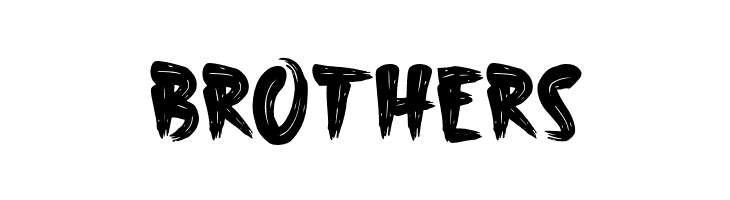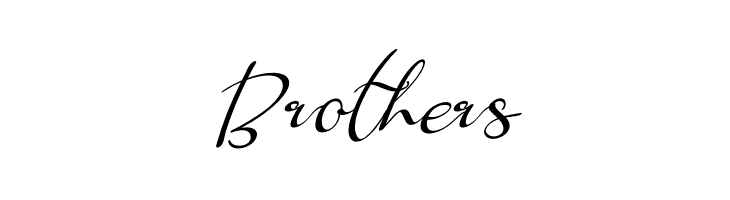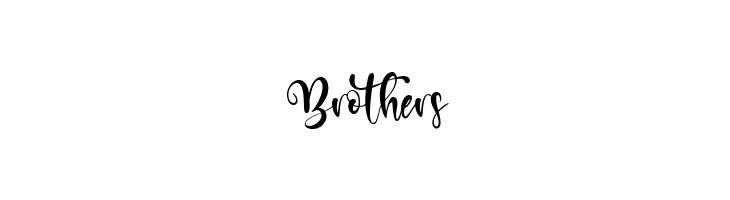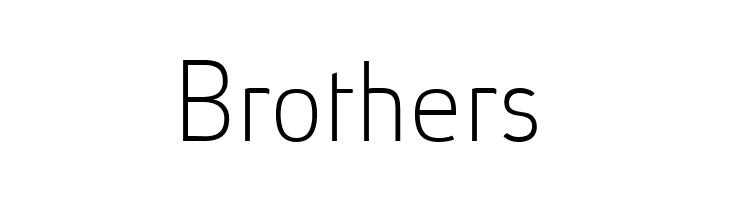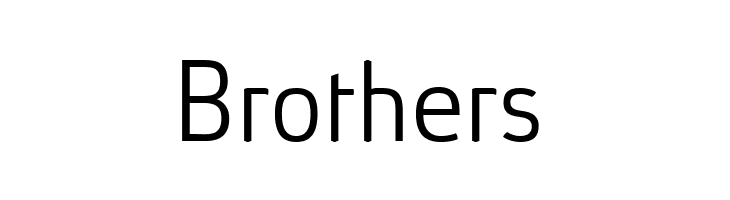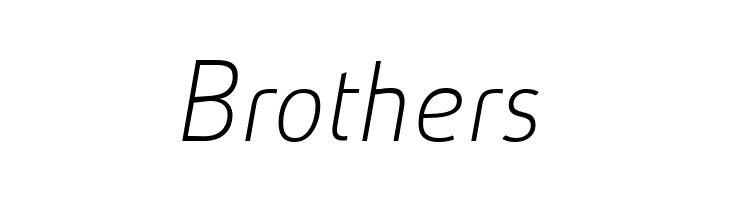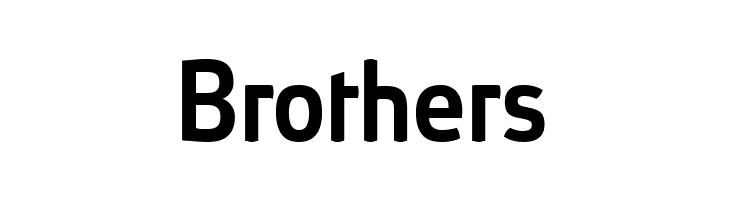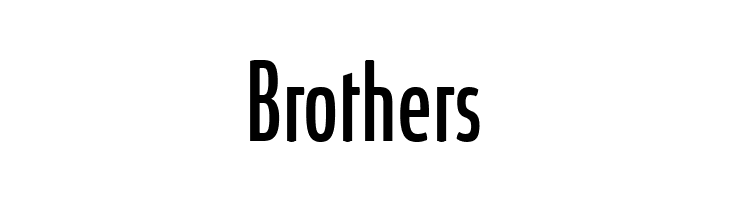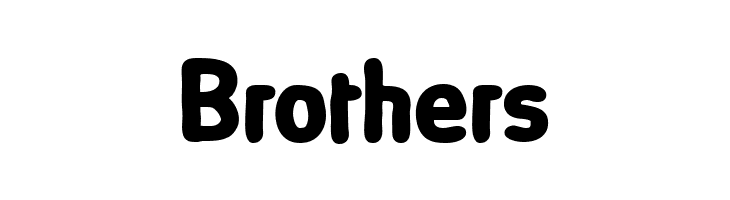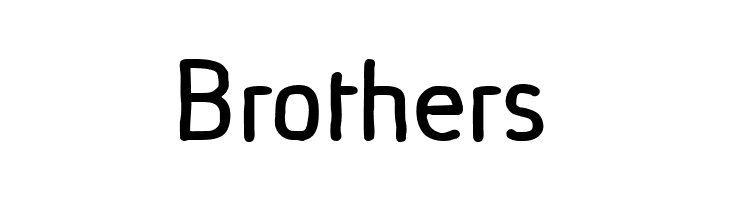
• Abrushow
A bold, brush-style font with dynamic and expressive strokes.
• Absence
An elegant script font with fluid, cursive strokes and sophisticated flourishes.
• Absence
An elegant script font with fluid, cursive strokes and sophisticated style.
• Absinthe
A whimsical and artistic font with elongated, curvy lines and decorative elements.
• Absollute
An elegant and decorative script font with ornate swirls and loops.
• Absollute
An elegant and ornate script font with flowing, decorative letterforms.
• Absolut Condensed Reduced Bold
A bold, condensed font with a modern and impactful style.
• Absolut Condensed Reduced Book
A modern, condensed font with smooth, rounded strokes and a professional appearance.
• Absolut Condensed Reduced Light
A modern, condensed sans-serif font with a sleek, uniform design.
• Absolut Condensed Reduced Medium
A modern, condensed sans-serif font with bold, uniform strokes and tight spacing.
• Absolut Condensed Reduced Thin
A modern, condensed font with thin strokes and geometric shapes.
• Absolut Reduced Black
A bold, rounded font with a modern and playful style.
• Absolut Reduced Black Italic
A bold, italicized font with thick strokes and a dynamic style.
• Absolut Reduced Bold
A bold, modern typeface with rounded characters and a clean aesthetic.
• Absolut Reduced Bold Italic
• Absolut Reduced Book
• Absolut Reduced Fat
A bold, chunky font with rounded edges and a playful style.
• Absolut Reduced Fat Head
A bold, block-like font with rounded edges for a strong yet approachable look.
• Absolut Reduced Italic
A modern, italic sans-serif font with clean lines and a dynamic slant.
• Absolut Reduced Light
A clean, modern sans-serif font with geometric structure and light weight.
• Absolut Reduced Light Italic
A sleek, modern, light italic font with a streamlined appearance.
A bold, ultra-condensed font with tight spacing and strong visual impact.